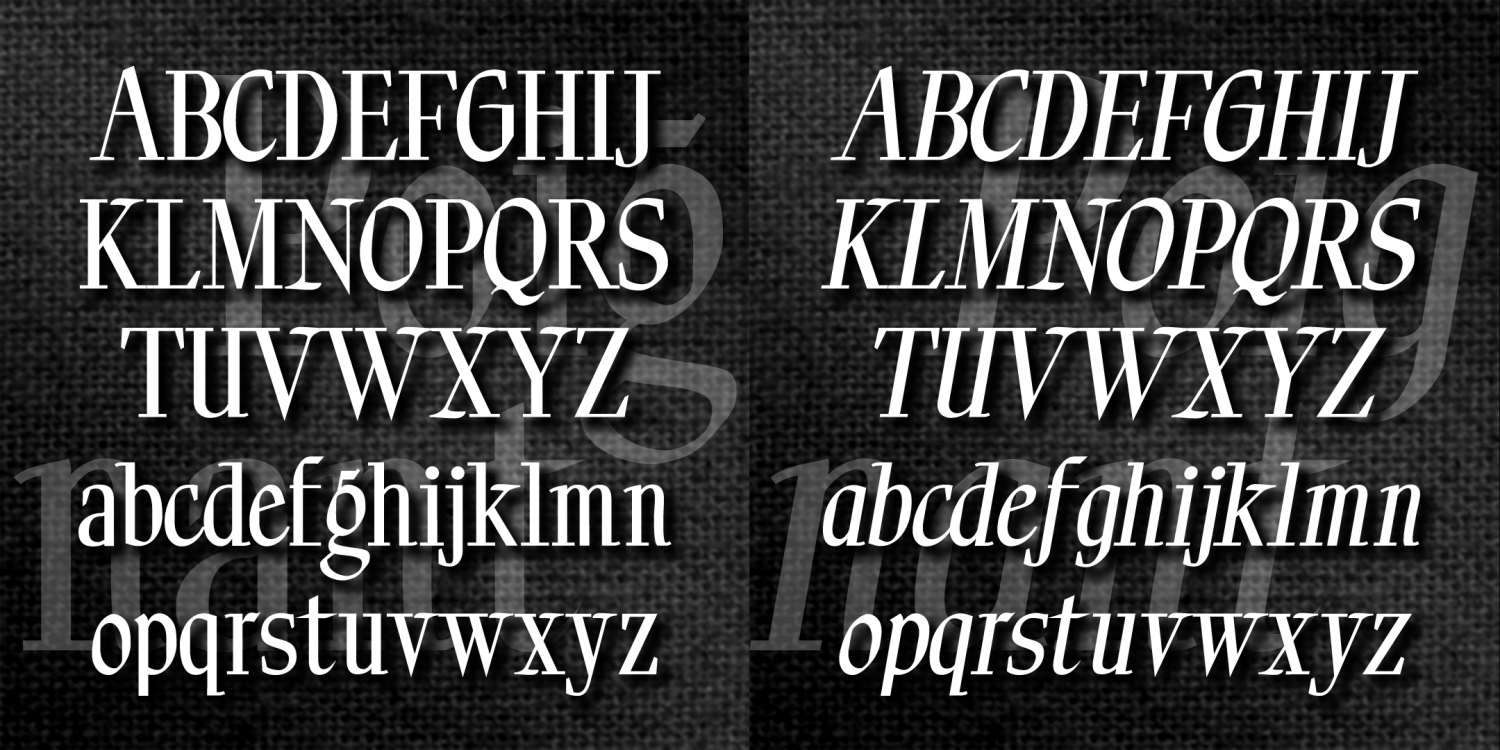
Poignant
Font Family by Harold's Fonts
POIGNANT is an elegant titling font that combines aspect of a "modern" or Didone font with calligraphic flourishes. Available in roman and italic.
Poignant was inspired by the hand-lettered titles of certain Twentieth Century dramatic films, including All About Eve (1950), Gentleman's Agreement (1947), and Niagara (1953), all art-directed by Lyle Wheeler, perhaps a clue to the original hand.